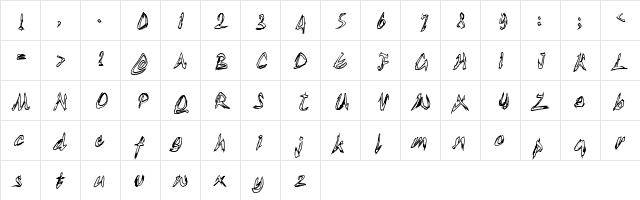
TornUpAndLovingIt Regular
| Version | 1.0 of this jagged and toen looking outline font |
Design Context for TornUpAndLovingIt Typeface
TornUpAndLovingIt is a composed and adaptable typeface that performs quietly and consistently across a wide range of design contexts.